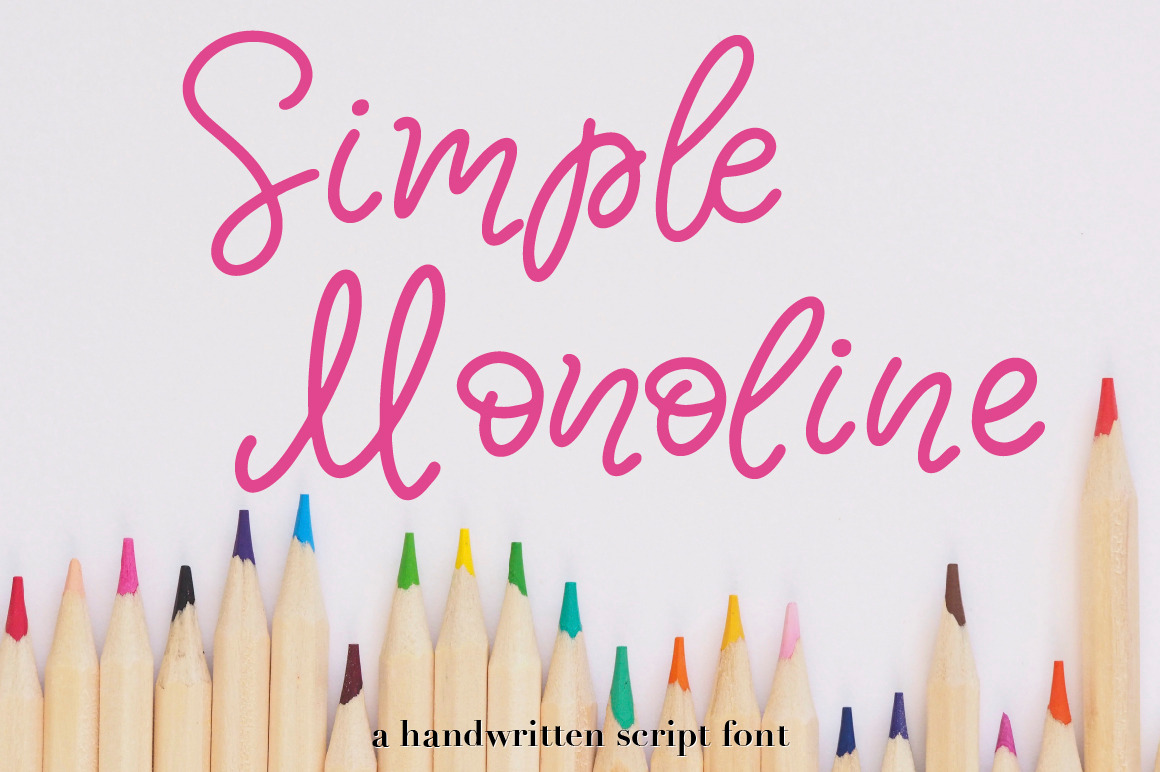
Simple Monoline A Handwritten Font
I am happy to introduce my new handwritten script font Simple Monoline! This font has the character of childlike spontaneity and playful cartoon mood. It will look great for logotype, quotes, greeting cards, social media overlays, prints, ads design and many more.
Hand-drawn script font Simple Monoline contains a full set of uppercase and lowercase letters and one alternate set of lowercase letters plus a big set of ligatures - which helps to imitate handwriting.
Multilingual support is included.